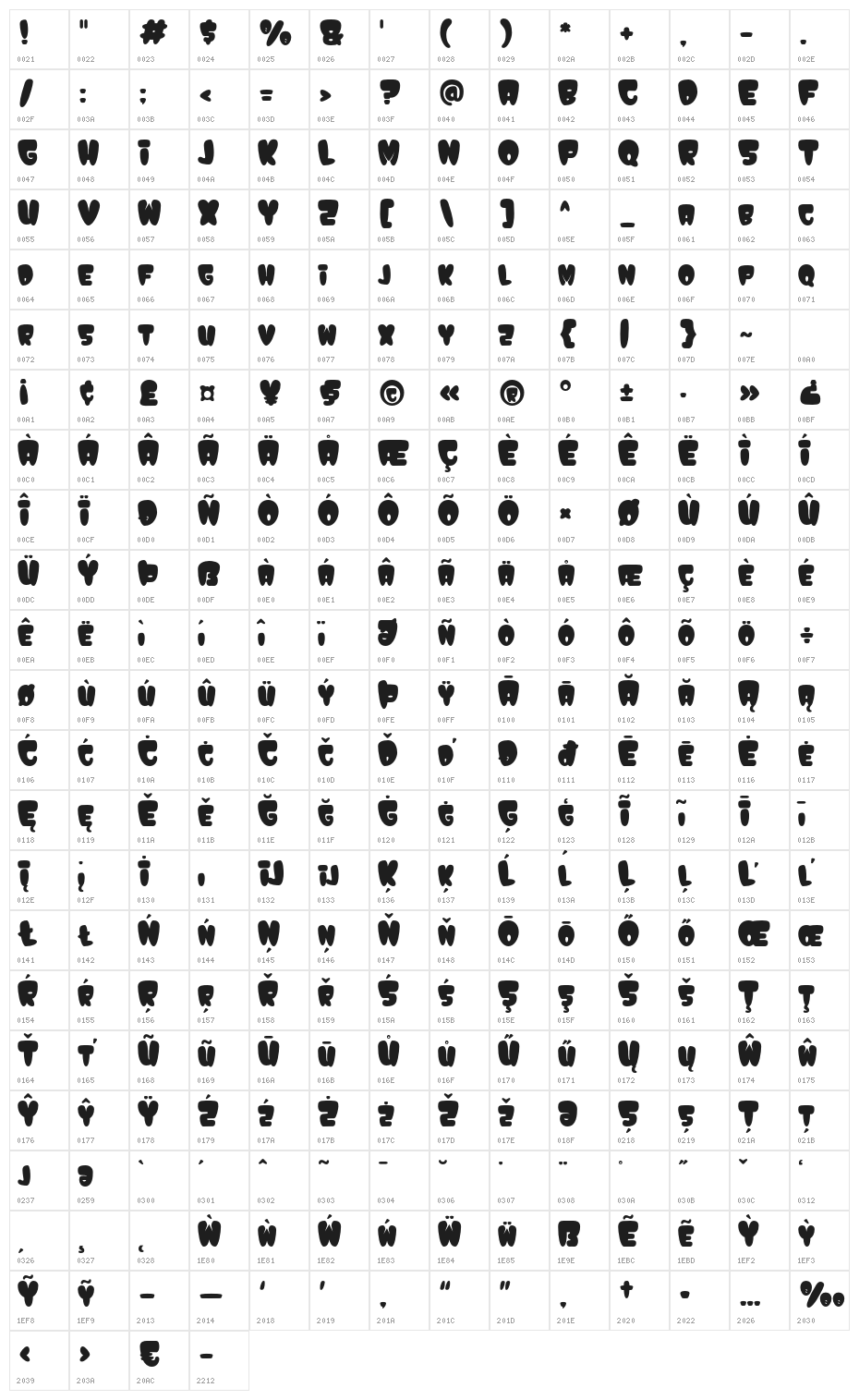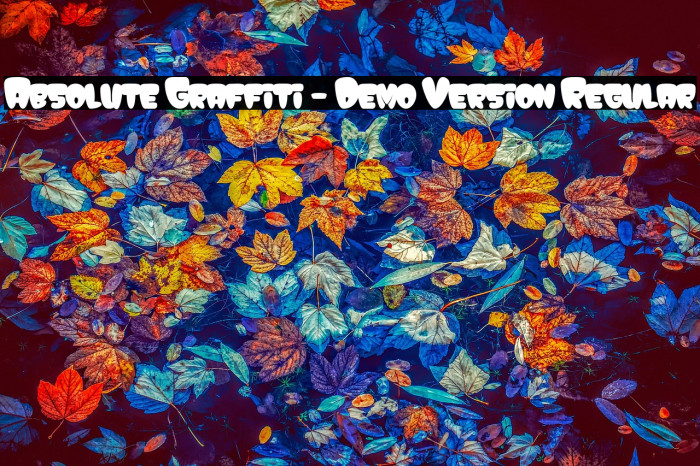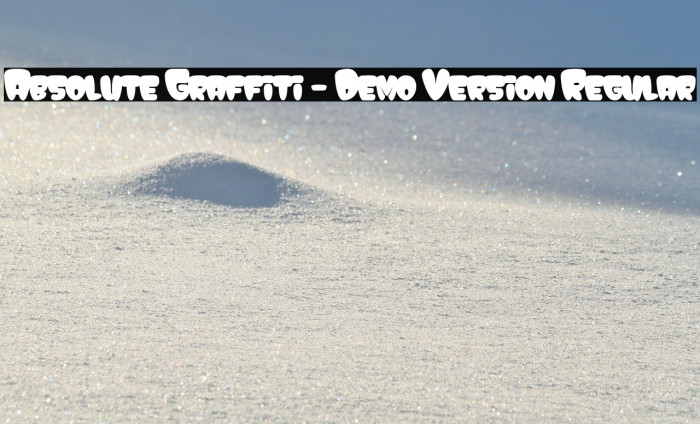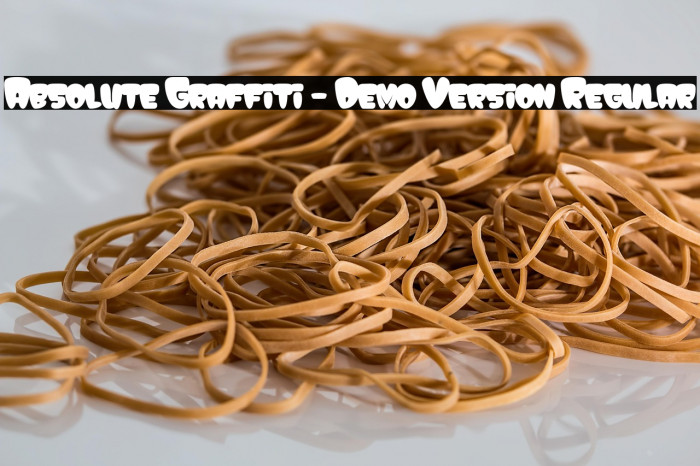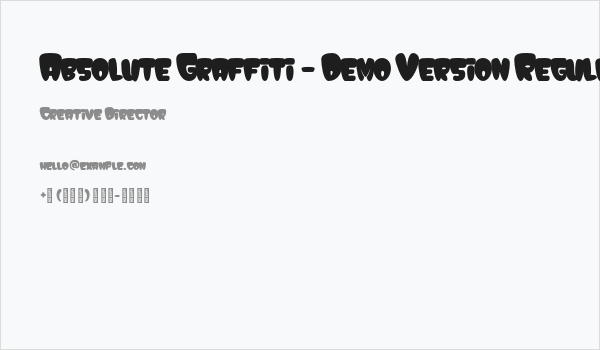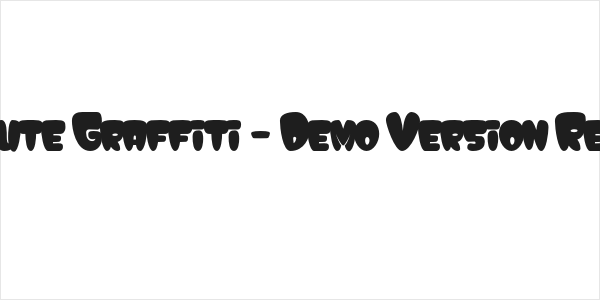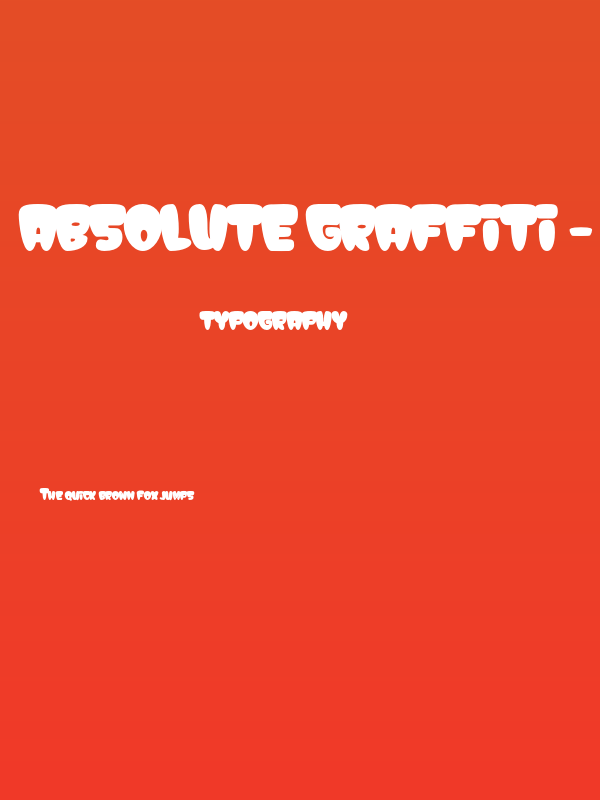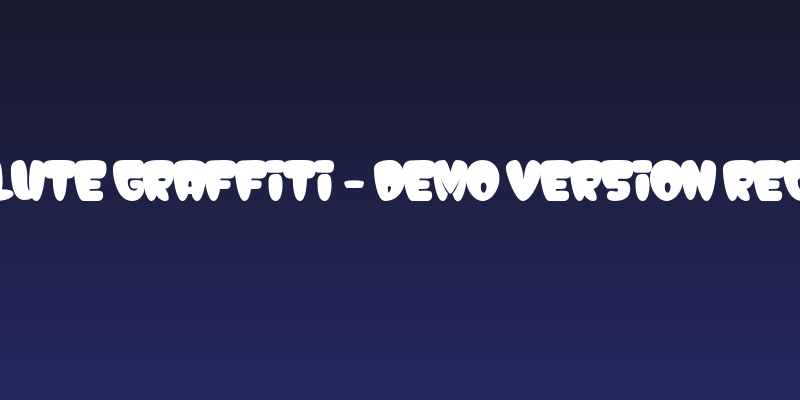
Absolute Graffiti - Demo Version Regular Font
Absolute Graffiti - Demo Version Regular Description
This font features a bold, graffiti-inspired style with thick, rounded letters that convey a sense of urban creativity and youthful energy. The characters are designed with a playful, bubbly appearance, making them stand out with a strong visual impact. The uppercase and lowercase letters maintain a consistent style, while the numbers and available special characters complement the overall aesthetic. The font lacks certain special characters, as indicated by placeholders. Its unique design is suitable for projects that aim to capture an edgy, street-art vibe.
| Overall Style | Urban, Playful, Edgy |
| Proposed Projects | Ideal for street art designs, urban-themed posters, music album covers, and youth-oriented branding. |